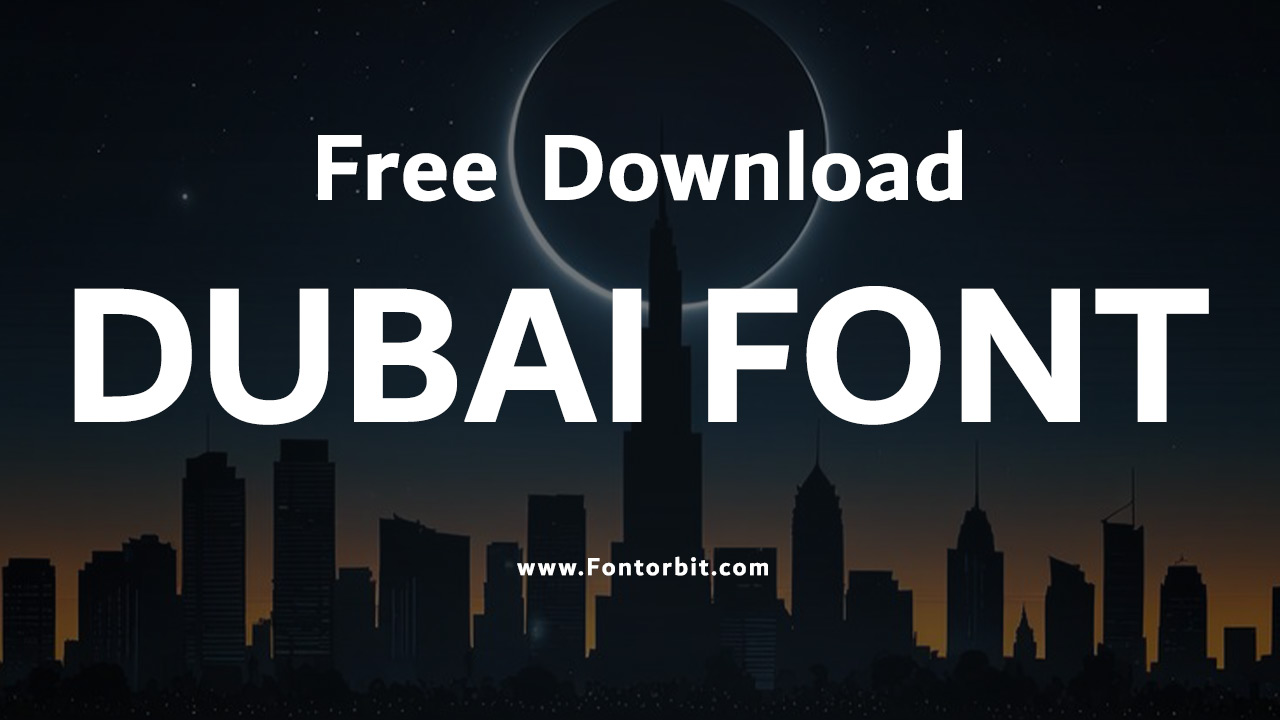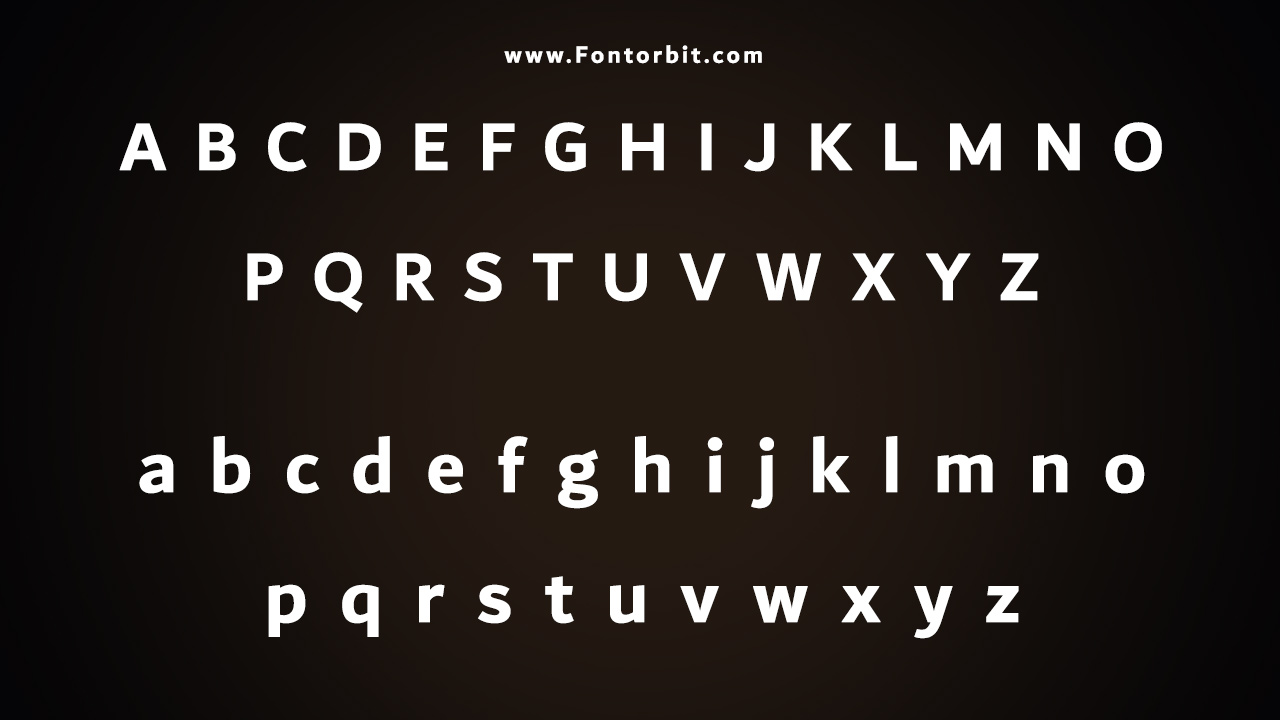
Led by Nadine Chahine, a six-member team from the U.S.-based firm Monotype designed the contemporary sans-serif typeface Dubai.
It was published in 2019 as part of the Dubai Font initiative, which aims to promote Arabic typography and enhance the digital representation of the Arabic script. The font family includes multiple weights and styles, making it versatile for various design projects.
Dubai Font Family Includes
Dubai offers a clean and modern aesthetic, making it suitable for both print and digital use. The font family includes:
- Dubai Light
- Dubai Regular
- Dubai Medium
- Dubai Bold
Notable Uses Of Dubai
Dubai is widely used in various contexts, including:
- Government publications in Dubai
- Corporate branding for local businesses
- Educational materials and websites
Dubai is perfect for:
- Website headers and body text
- Branding and logo design
- Marketing materials, such as brochures and posters
Dubai is an elegant and functional typeface that bridges the gap between Arabic and Latin scripts. Its versatility makes it a great choice for a wide range of design applications, enhancing readability and aesthetic appeal.
3.Does Dubai Support Multiple Languages?
Yes, it supports both Arabic and Latin scripts.
7.Who Designed The Dubai Font?
Mohammed Rashid is the designer of the Dubai typeface.
8.Is There A Specific Context Where Dubai Is Best Used?
It is great for modern, corporate, and creative projects.